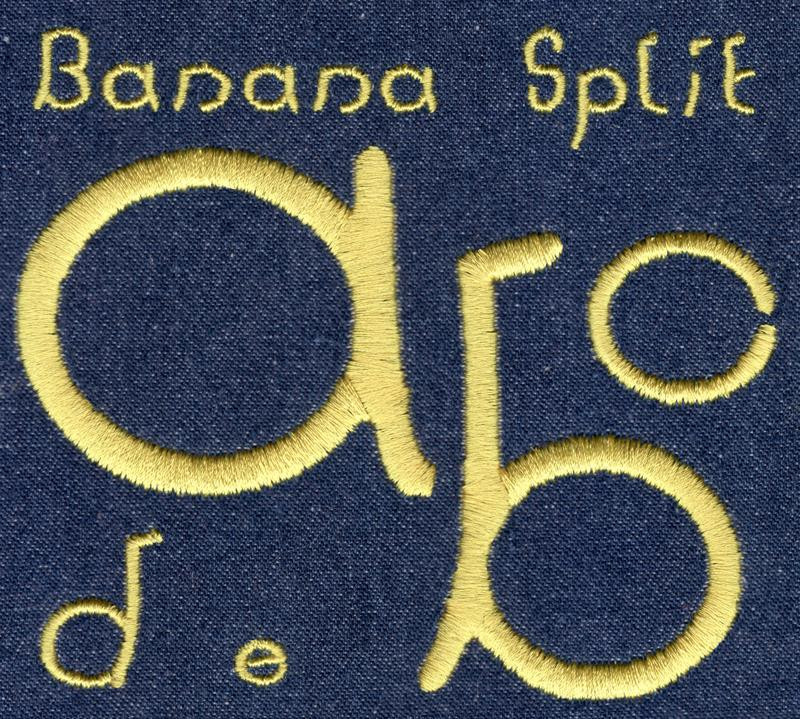
460 Banana Split Satin Font
Banana Split Satin Font comes in 0.5", 1", 2", 3" and 4" heights based on the capital "A". All sizes are finished in satin stitch and include uppercase and lowercase letters (no numbers or punctuation marks are available for this set). Some characters in the 4" set exceed standard 4x4 hoop limitations.